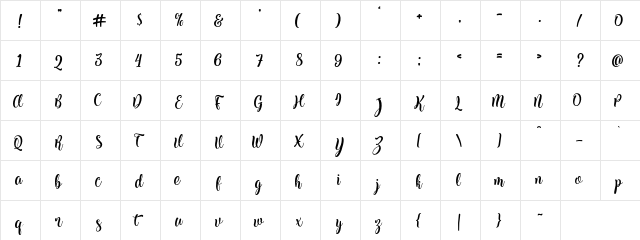
Kite Script Regular
| Designer | Twicolabs Fontdation |
Design Context for Kite Script Typeface
Kite Script flows with the natural rhythm of handwritten lettering, making it ideal for designs that call for warmth and personal expression.
Font Pairing: Combine Kite Script with a simple geometric sans for maximum contrast — the tension between flowing curves and clean structure is a classic typographic pairing.
Pro Tip: Pair Kite Script with a clean sans-serif for supporting text. The contrast between fluid script and geometric structure creates an elegant typographic hierarchy.